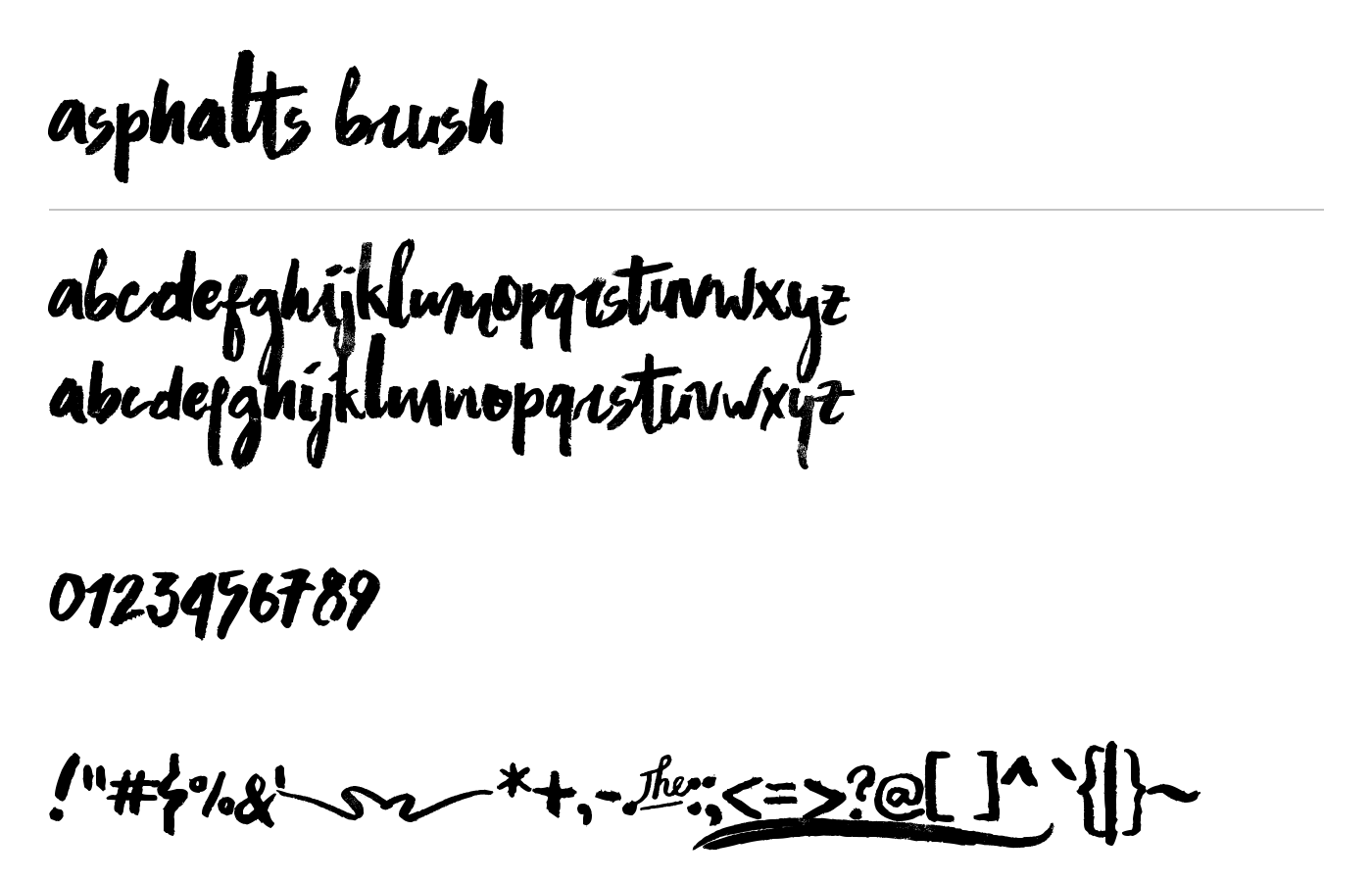
Asphalts Brush is a bold, expressive brush script font with a raw and hand-painted feel, featuring irregular strokes that create a lively, organic texture. Its casual, slightly rough letterforms convey creativity and energy, making it perfect for dynamic branding, posters, and artistic projects that seek an informal yet impactful look. This font shines in designs that want to communicate personality and a handcrafted touch.
Asphalts Brush Font
About Asphalts Brush Font